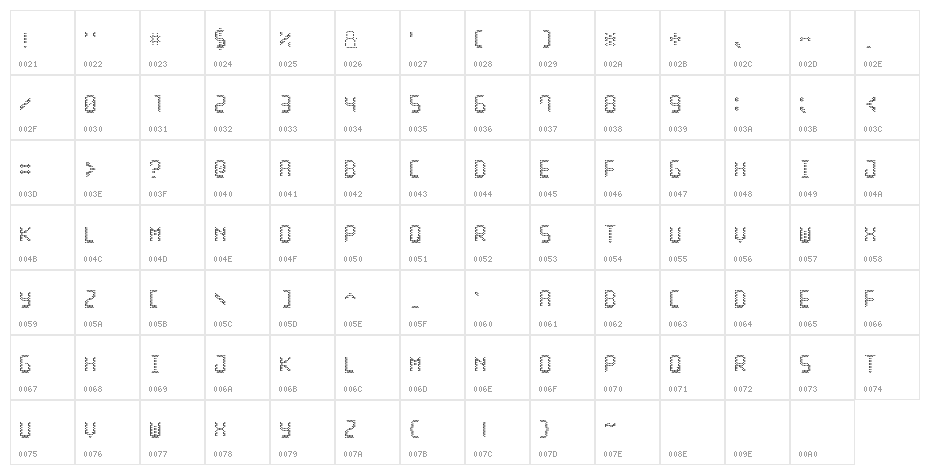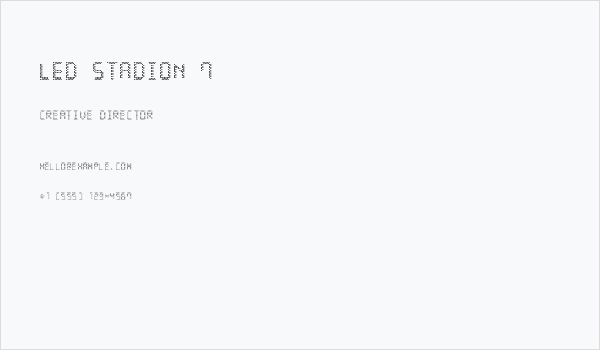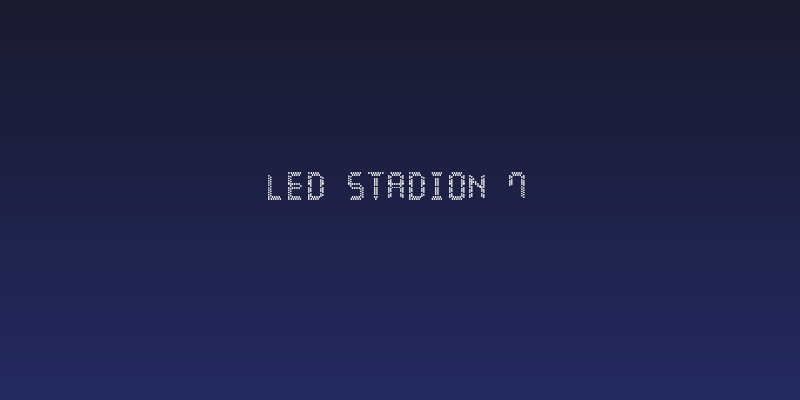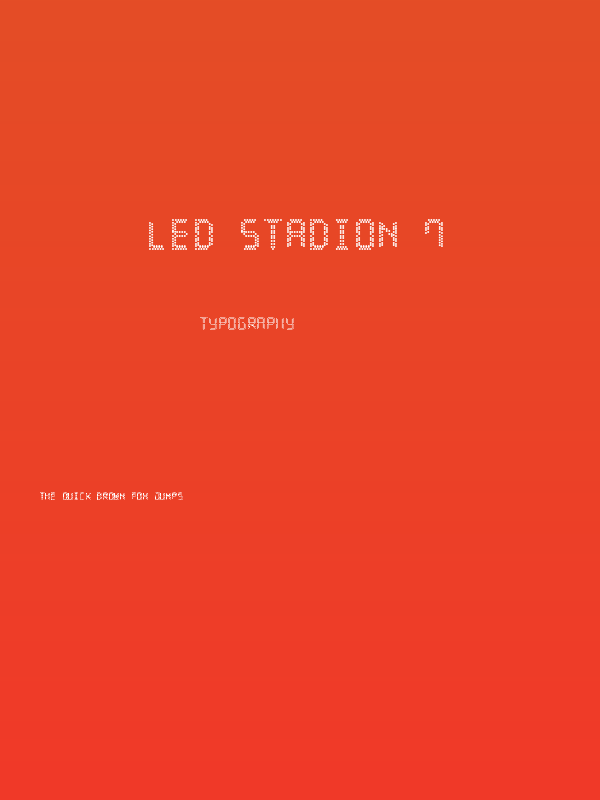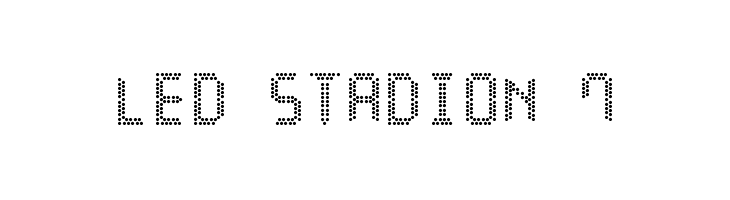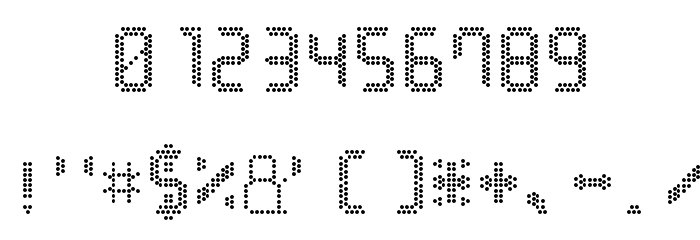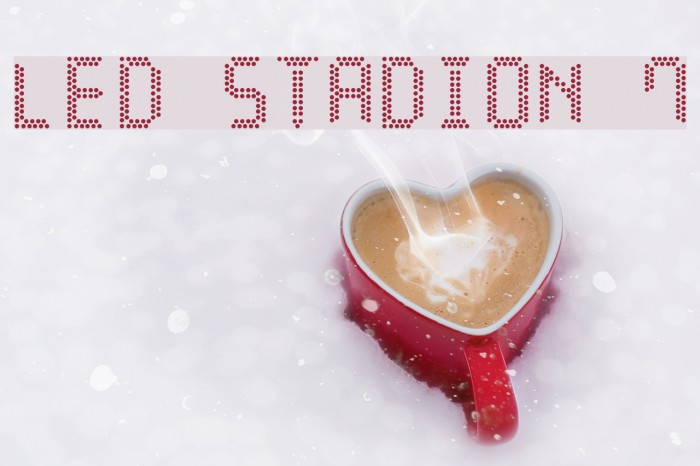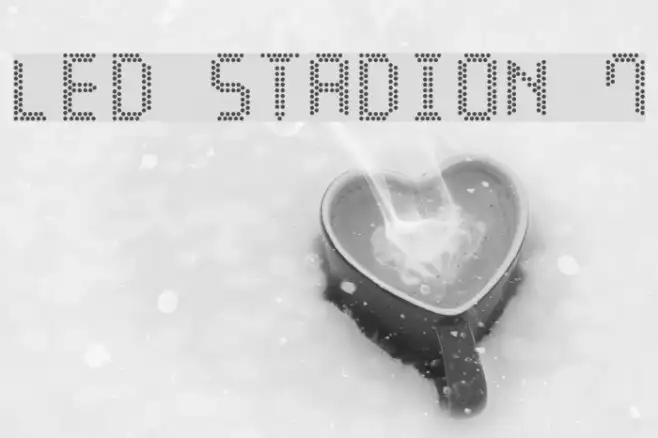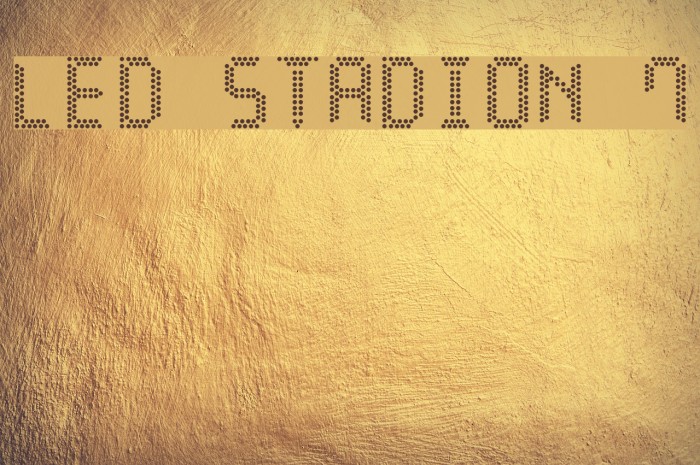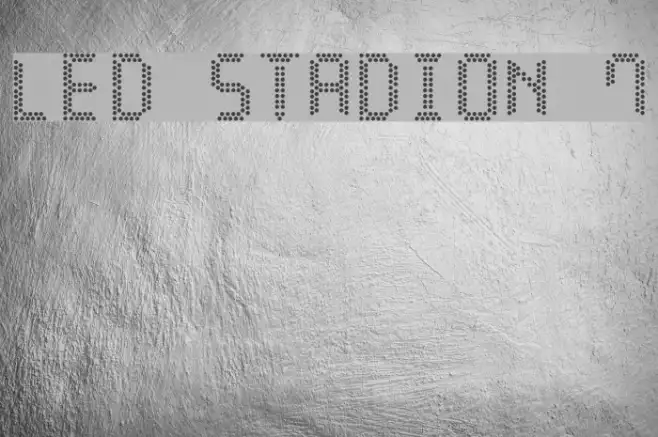
LED Stadion 7 Font
LED Stadion 7 Description
This font features a unique dot matrix design, reminiscent of LED displays. Each character is composed of a grid of dots, creating a digital and modern aesthetic. The uppercase and lowercase letters maintain a consistent style, with clear and legible forms. Numbers and special characters follow the same dot pattern, ensuring uniformity across all glyphs. The font's structure is geometric, with straight lines and right angles dominating the design. This style is particularly effective for conveying a technological or futuristic theme, making it suitable for digital displays and electronic interfaces.
| Use Case | Headlines, Logos, Digital displays |
| Proposed Projects | Ideal for digital displays, electronic interfaces, tech-themed posters, and modern branding projects. |